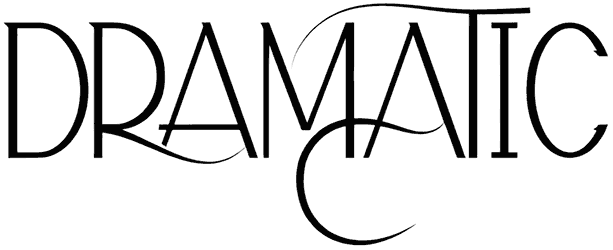
Abunas Font
Designed byGrowonk
Abunas is a sans serif font that can open a world of the best projects for you. This font with a classic touch and very soft twists can add special effects to your different designs.
The masculine and modern style of Abunas allows you to use it to design industrial logos, fantasy book covers, and advertising slogans. Of course, you should know that this logo font does not include lowercase letters and numbers.